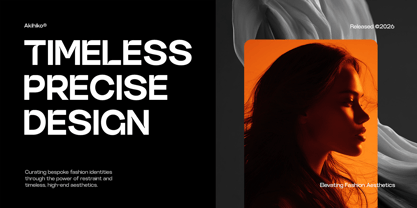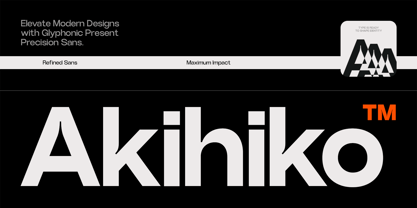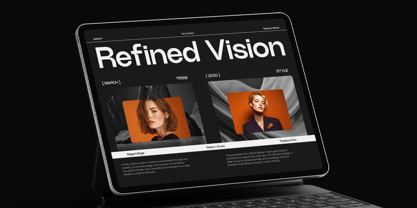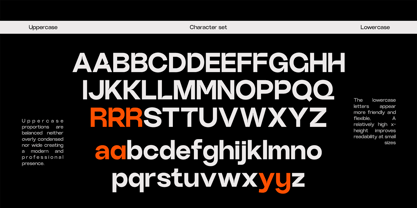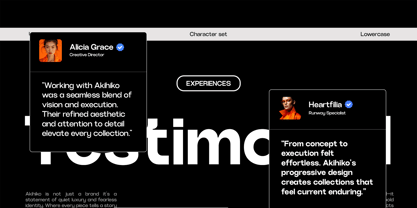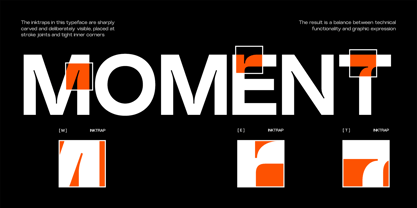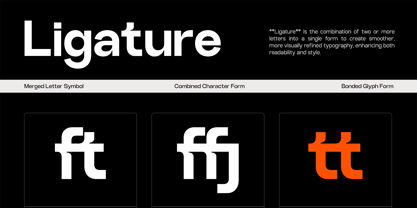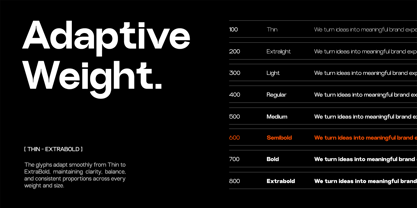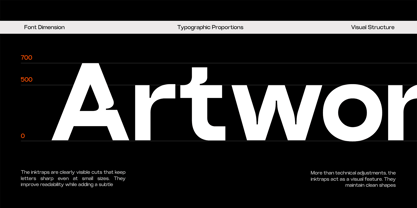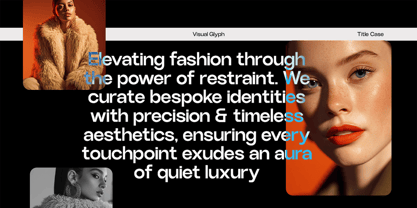
GC Akihiko
by Onyx Studio
The GC Akihiko Font Family was designed by Muhammad Hafiizh Solana and published by Onyx Studio. GC Akihiko contains 8 styles and family package options. More about this family
GC Akihiko – Modern Precision Sans is a contemporary sans serif typeface designed with refined geometry and precise modern structure. Built to deliver clarity and control, Akihiko presents a clean and confident typographic voice suited for high-end visual communication. With sharp cuts, balanced proportions, and minimalist detailing—as seen in its structured letterforms—**GC Akihiko** creates a sense of precision and sophistication. Its design focuses on clarity and alignment, making it ideal for branding systems, editorial layouts, modern interfaces, and corporate design. Crafted for both digital and print environments, GC Akihiko ensures consistency and readability while maintaining a strong visual presence. As a variable typeface, it offers flexible weight control, allowing designers to create clear hierarchy and adaptable compositions with ease. Whether used for impactful headlines, clean layouts, or modern brand identities, GC Akihiko brings precision, elegance, and maximum visual impact to your typography. Features: - Variable Font (Adjustable Weight Axis) - Uppercase & Lowercase - Numbers & Punctuation - Modern Geometric Sans Construction - Clean & Precise Letterforms - Multilingual Support (170+ Languages) GC Akihiko — precision in every detail, clarity in every form.
Designers: Muhammad Hafiizh Solana
Foundry: Onyx Studio